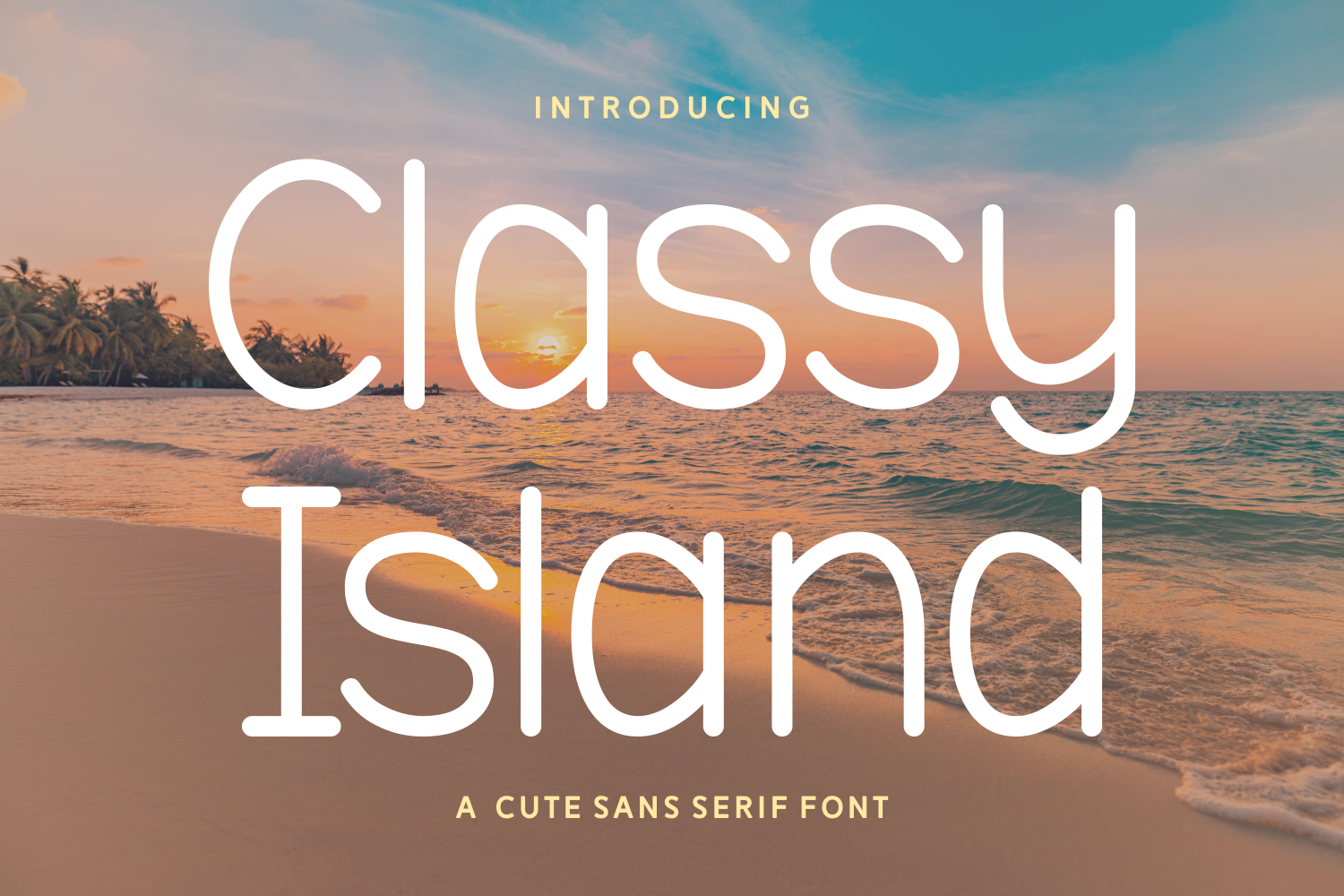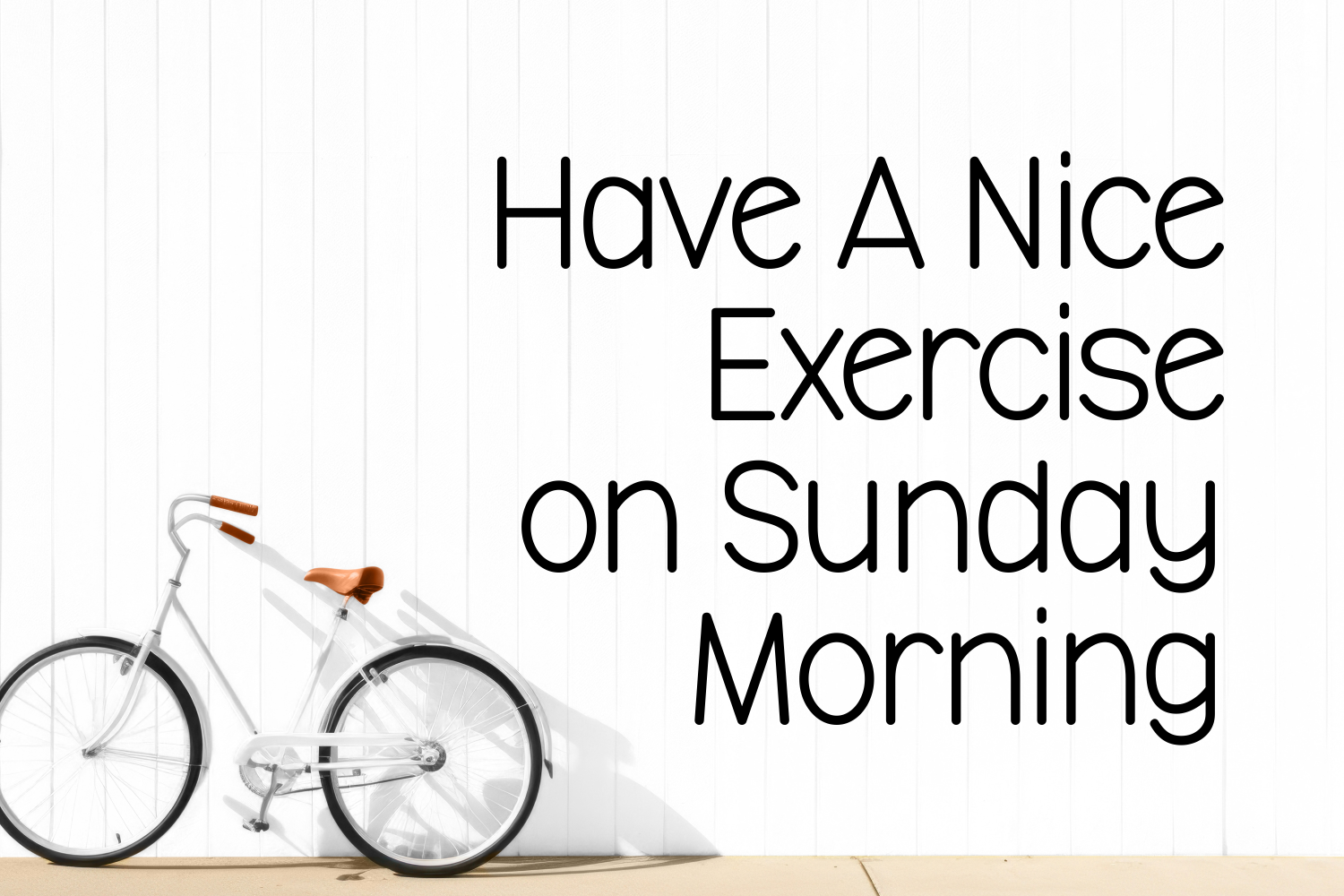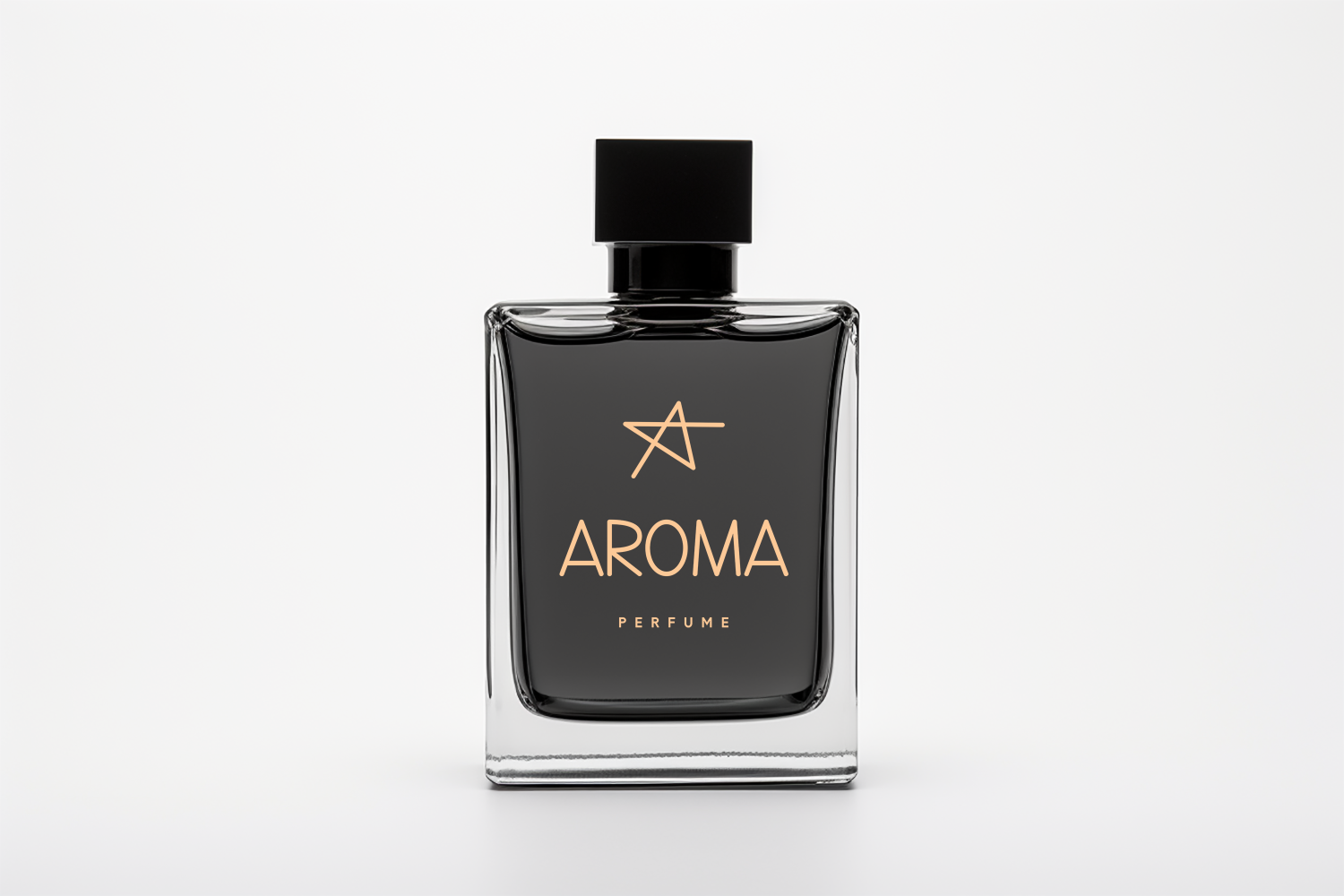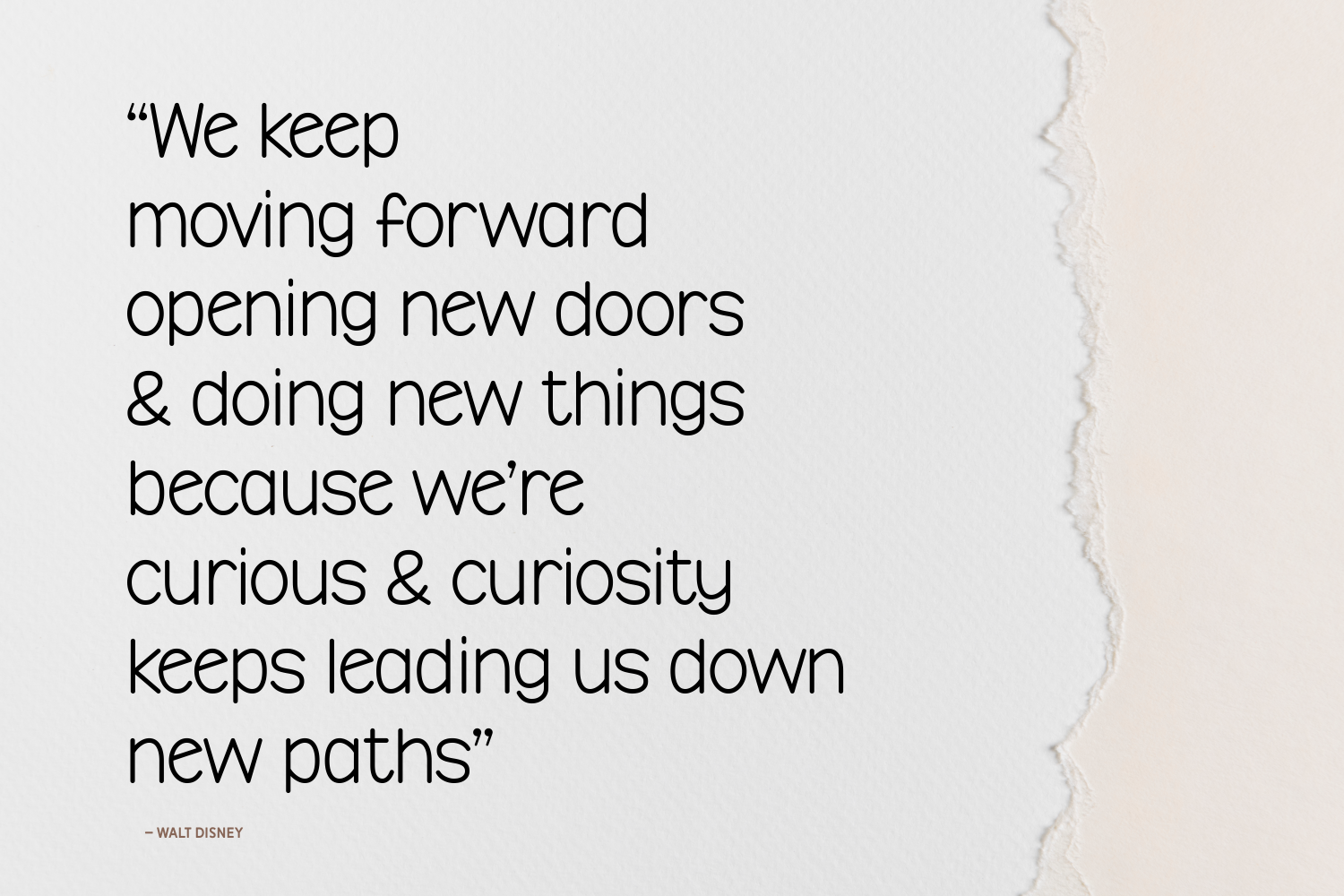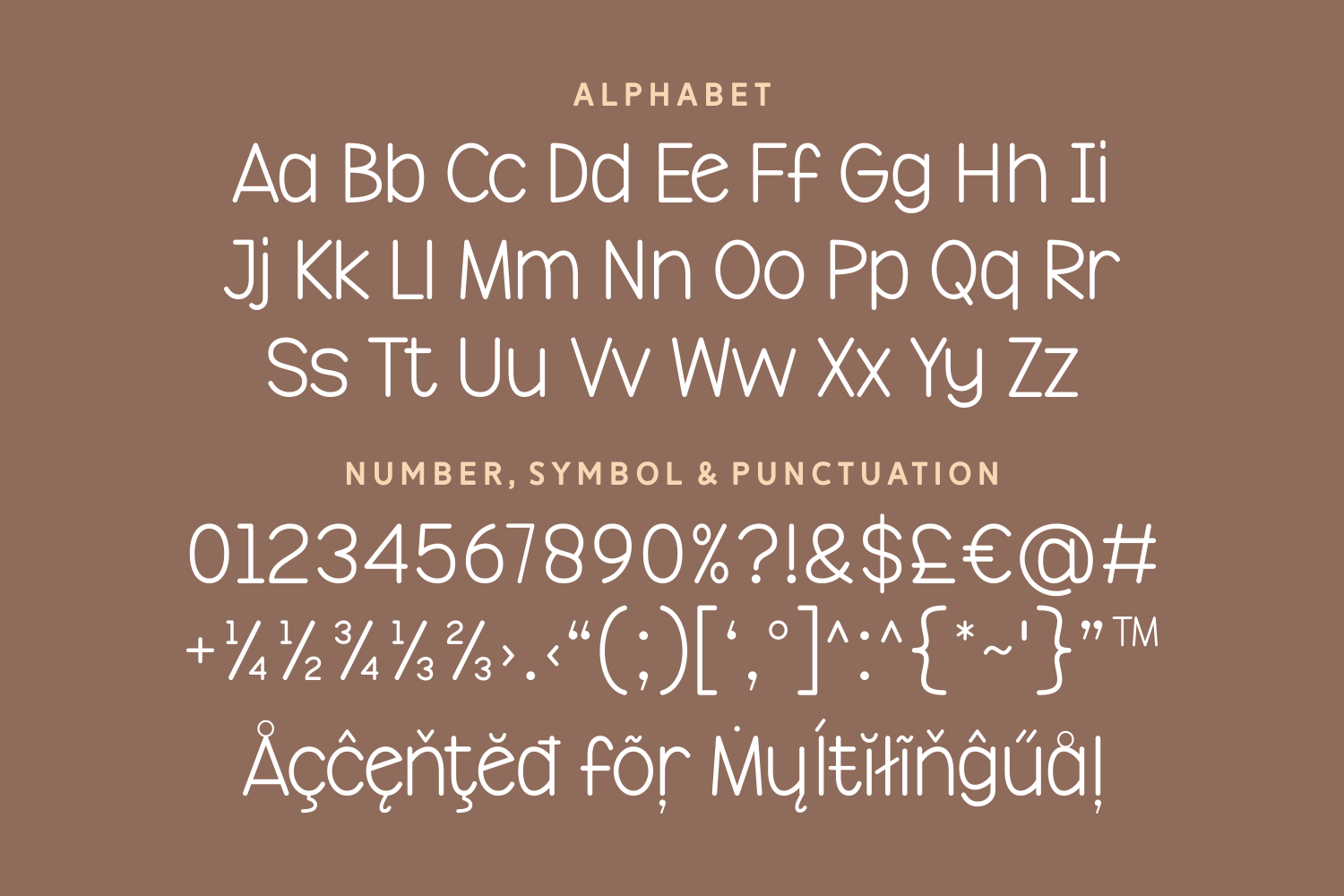
Classy Island
Classy Island is a cheerful sans serif font with a smooth, rounded aesthetic that radiates friendliness and warmth.
Despite its fun and cute demeanor, Classy Island retains great legibility across various sizes and settings. With full support for punctuation, multilingual characters, and clean letterforms, it brings both charm and versatility to your creative toolkit.